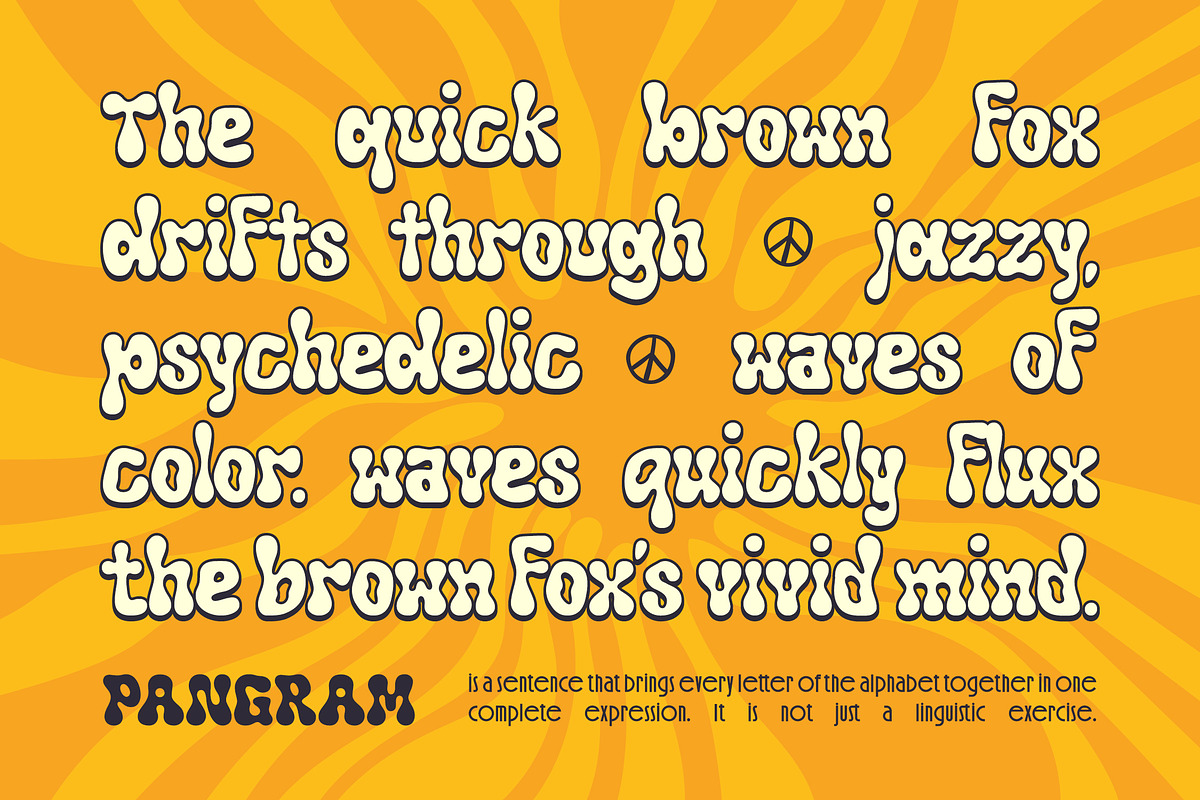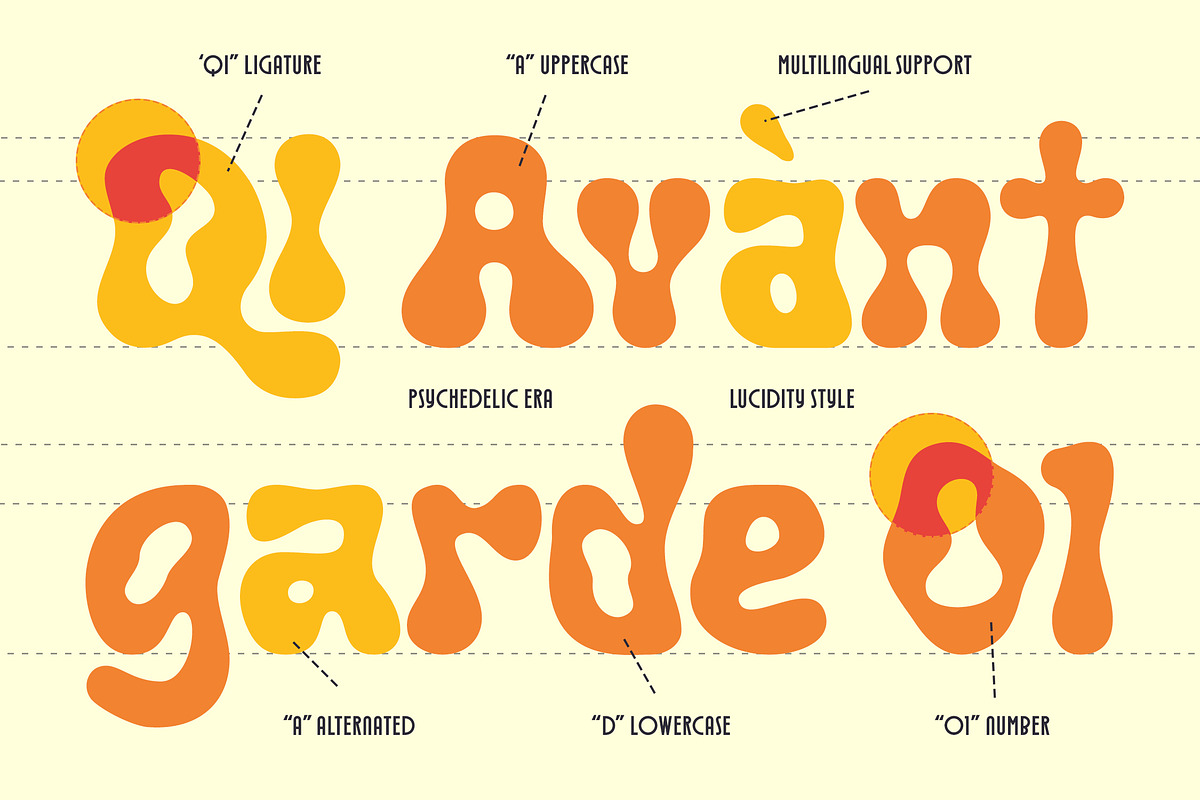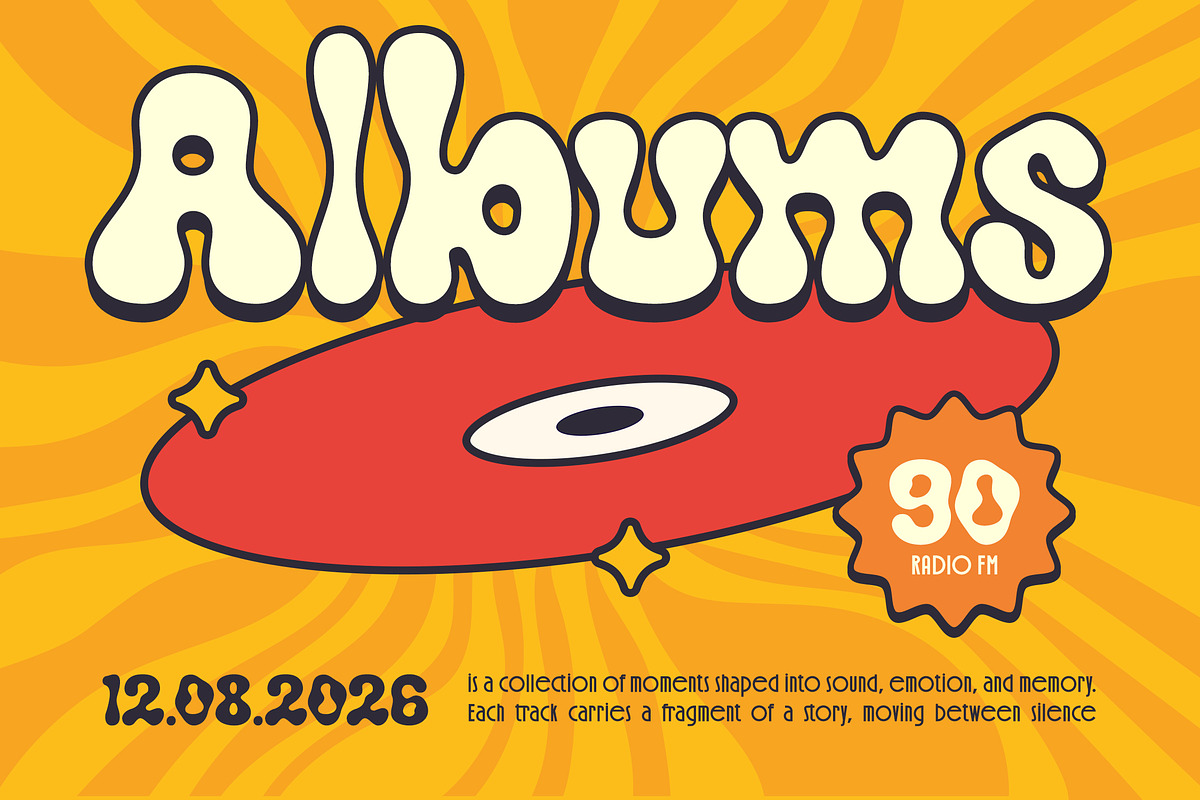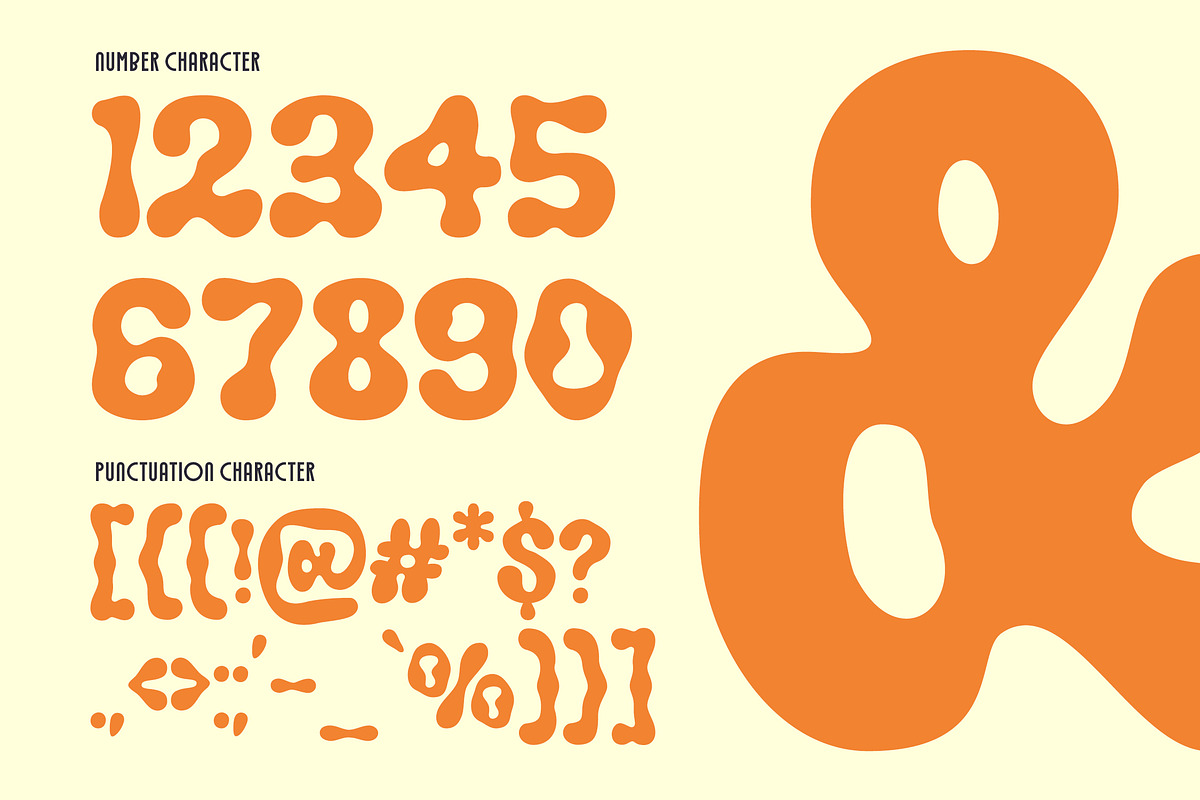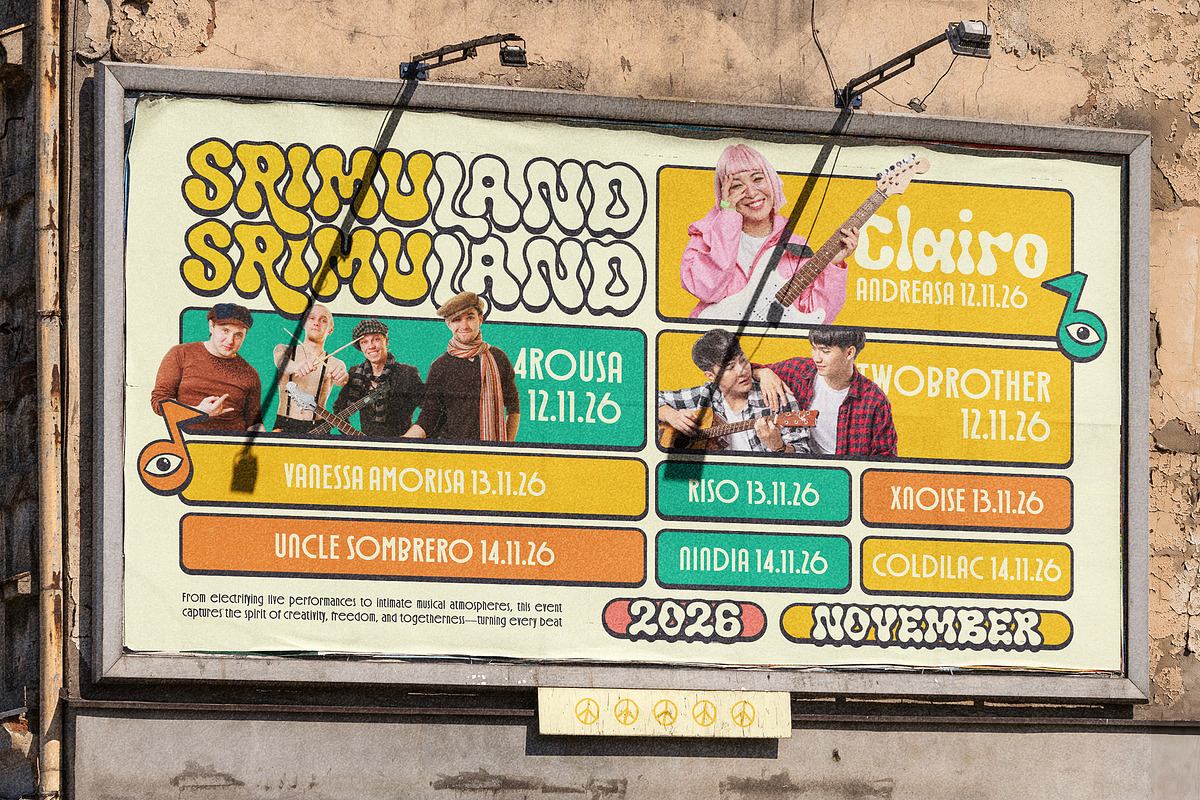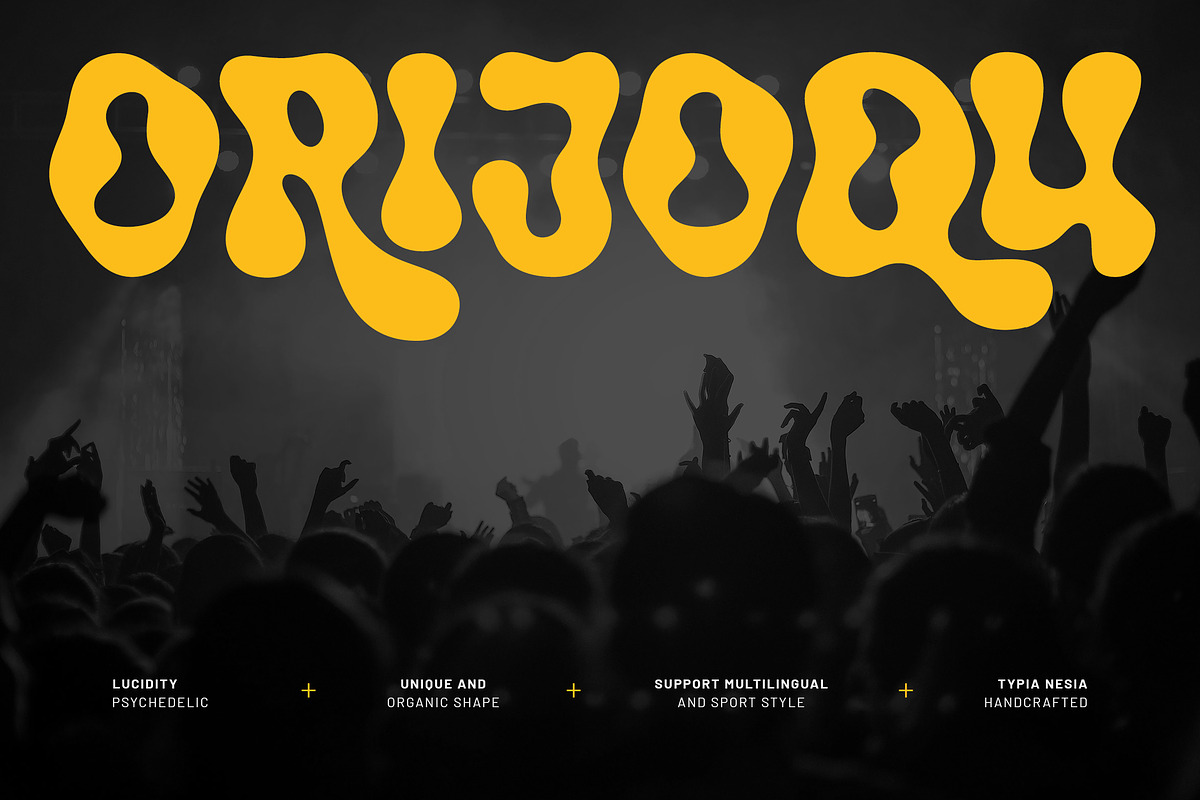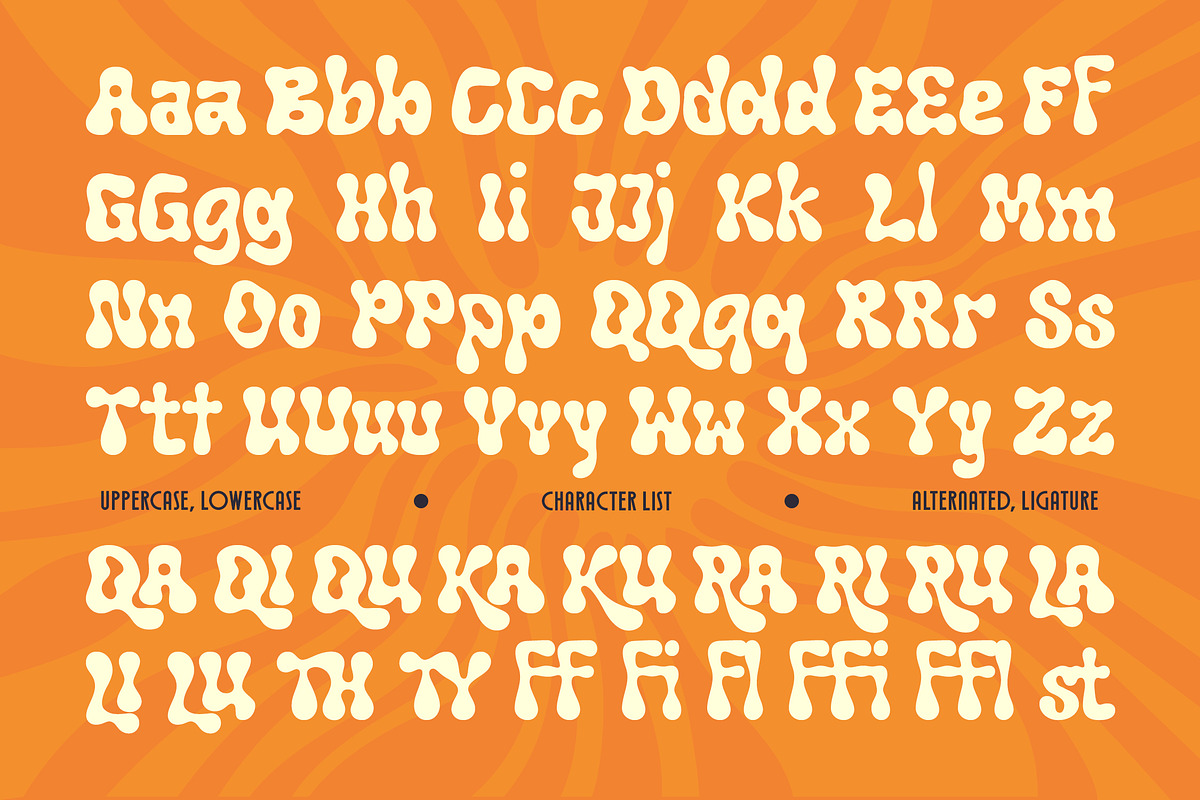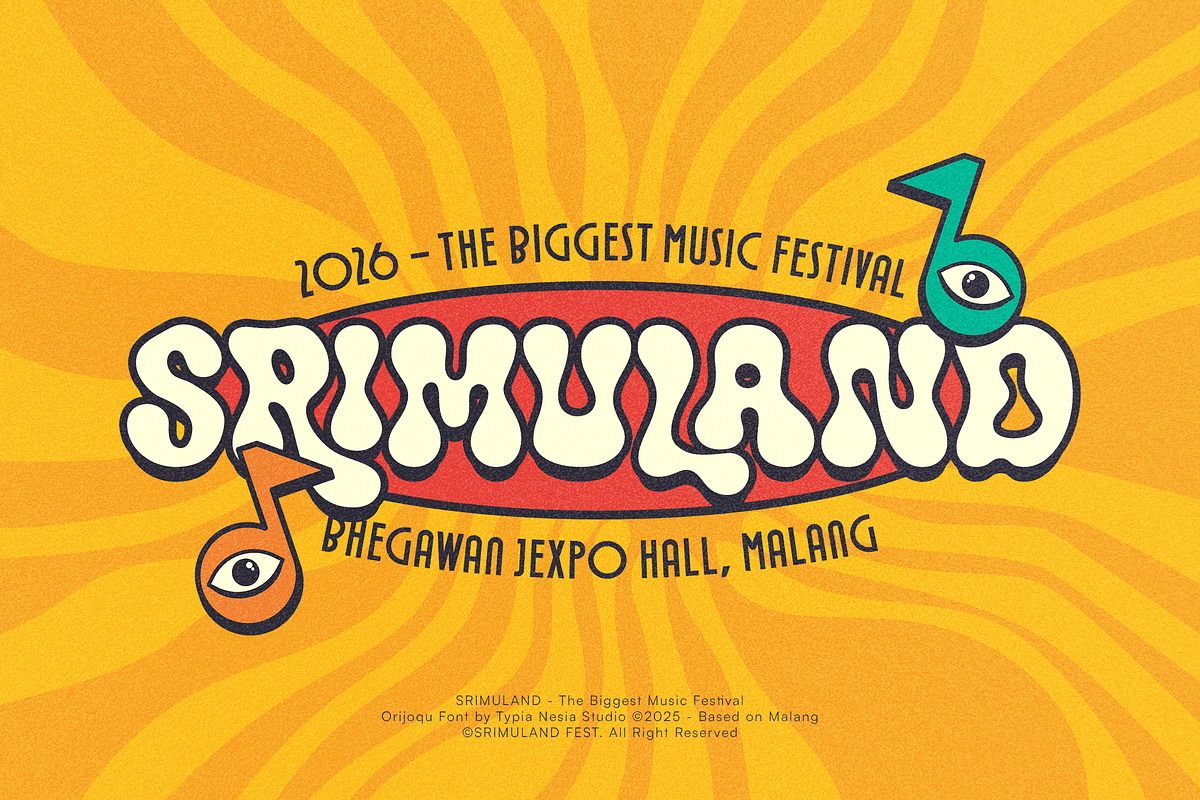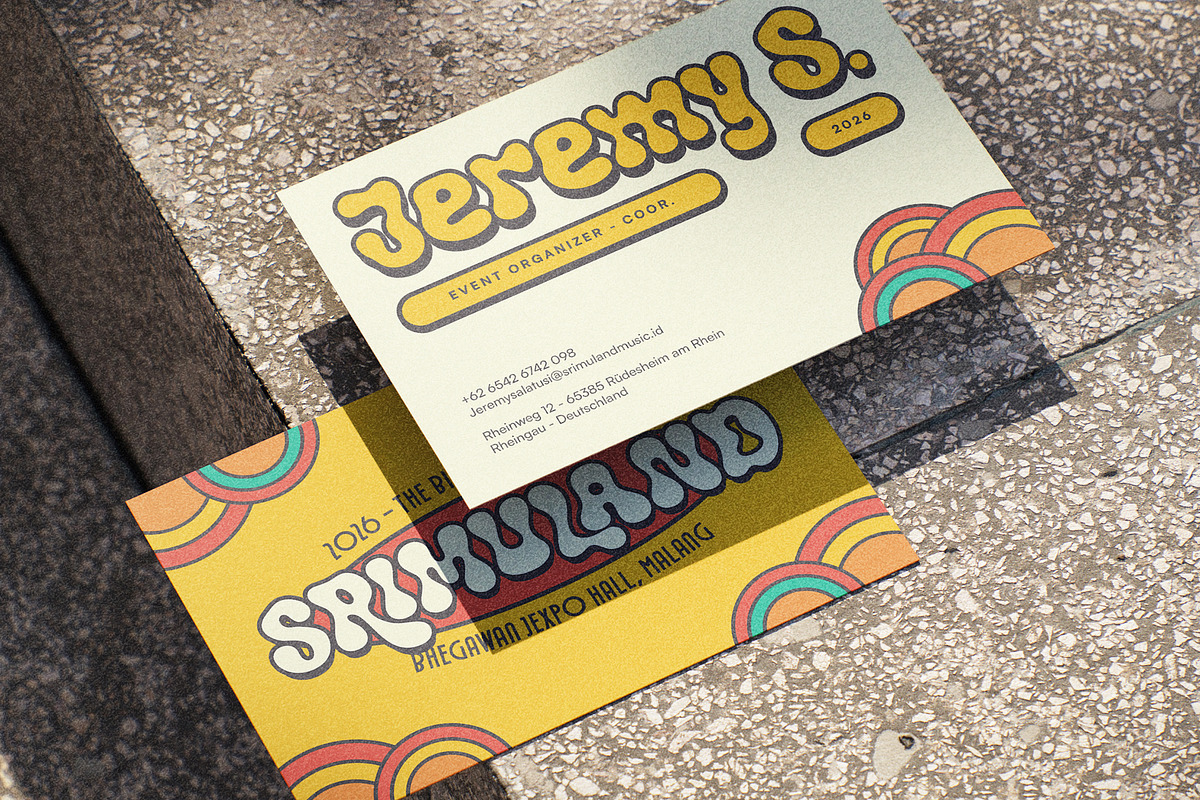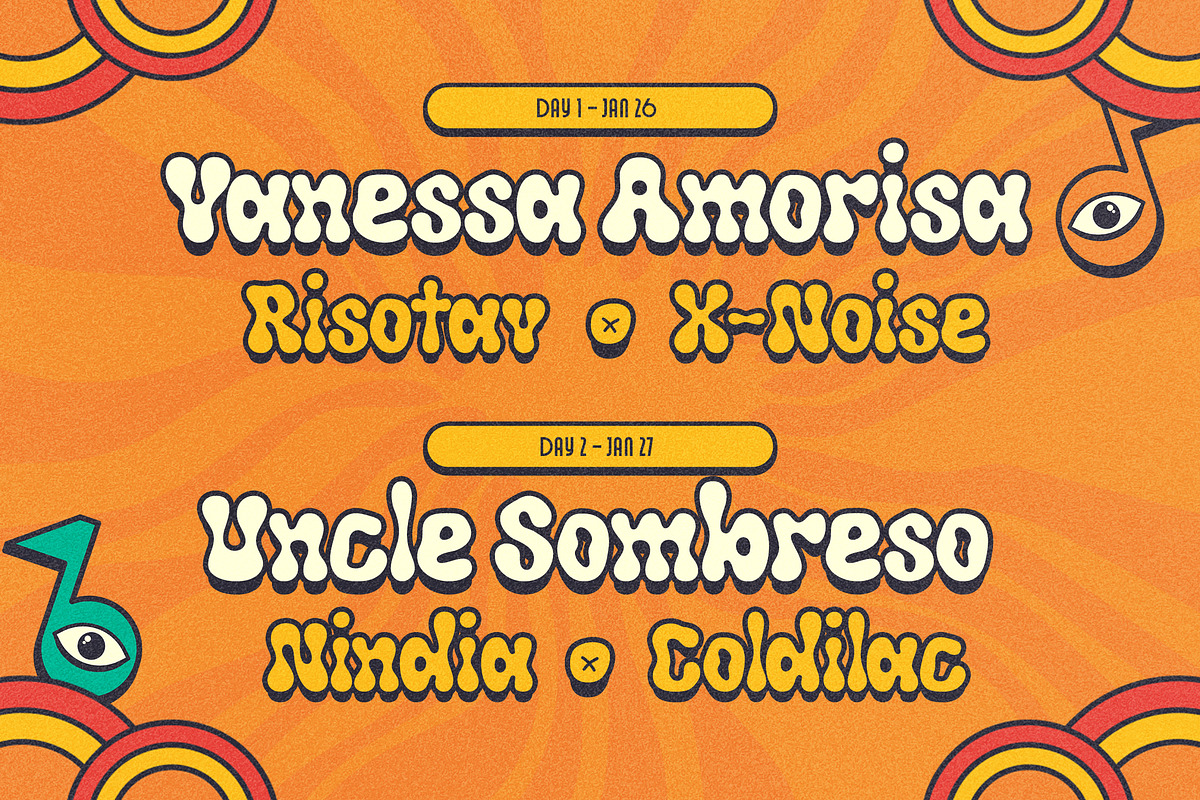
Orijoqu – Bold Liquify Psychedelic
Orijoqu – Bold Liquify Psychedelic Display Font - Retro & Funky Groovy Logo Font
Orijoqu is a bold liquify psychedelic display font inspired by the vibrant spirit of the 70s retro era. Featuring fluid, melting curves and organic shapes, this typeface delivers a funky, groovy, and playful personality that instantly grabs attention. Designed with a strong vintage vibe, Orijoqu is perfect for logos, music posters, album covers, retro branding, pop art projects, festival designs, fun creative layouts, and any project that feels expressive, energetic, and full of character. Orijoqu brings a unique and unforgettable statement to every design.